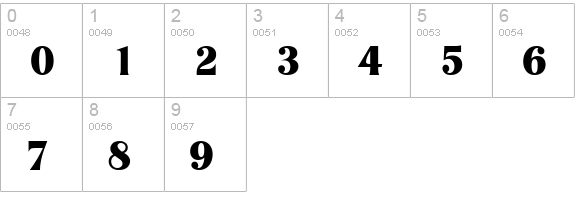
Tennessee Heavy SF Bold is a heavy, high-impact variant in the Tennessee typeface family \xE2\x80\x94 well suited to high-impact headlines, posters, and display advertising.
Introducing Tennessee Heavy SF Bold font, a powerful and commanding typeface that exudes strength and confidence. This font is perfect for any project that requires a bold and impactful presence. With its thick and sturdy letterforms, Tennessee Heavy SF Bold demands attention and leaves a lasting impression. This font is not only visually impressive but also versatile in its application. Whether you're designing eye-catching headlines, creating striking logos, or crafting attention-grabbing posters, Tennessee Heavy SF Bold is sure to elevate your design to new heights. One of the most remarkable aspects of Tennessee Heavy SF Bold is that it is freely available for download at FontsMarket.com. This means that you can effortlessly access and utilize this exceptional font for all your personal and commercial projects without any restrictions. So, whether you're a professional designer or a creative enthusiast, you can now enjoy the benefits of this remarkable typeface without any cost. Don't miss the chance to enhance your designs with the bold and impactful aesthetics of Tennessee Heavy SF Bold. Download it for free at FontsMarket.com and unlock a world of creative possibilities. Let your designs speak volumes with the commanding presence of Tennessee Heavy SF Bold.